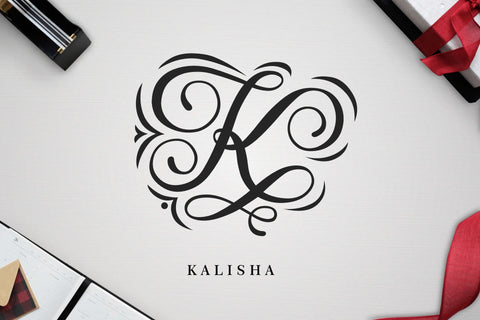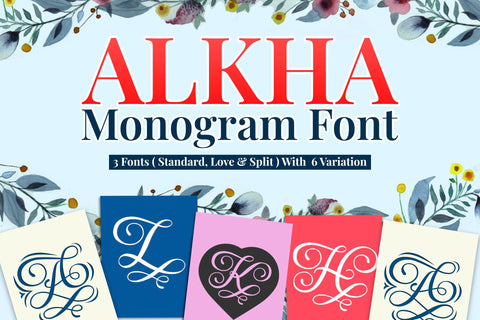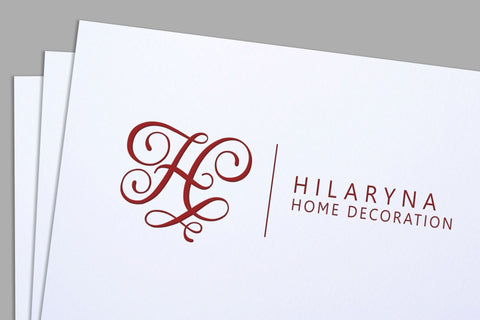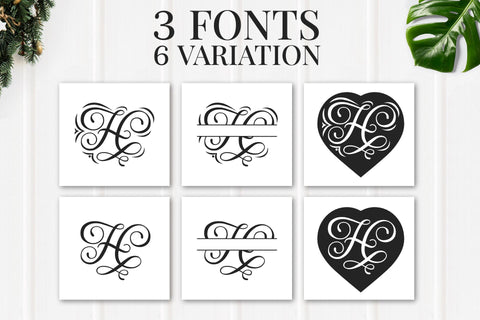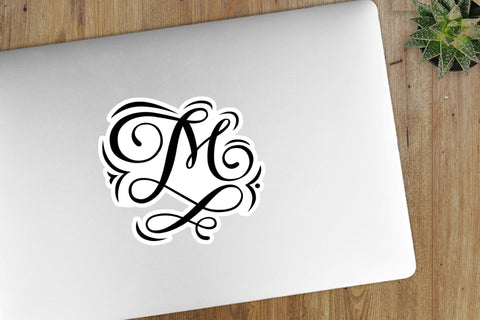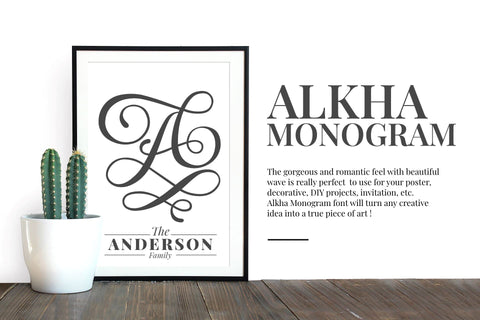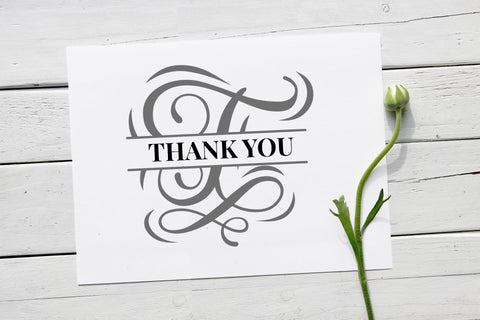
Alkha Monogram Font
Alkha simplifies elegance into one truly outstanding decorative font. This font will appeal to a wide range of crafty ideas, from letterheads and titles, to stationery.